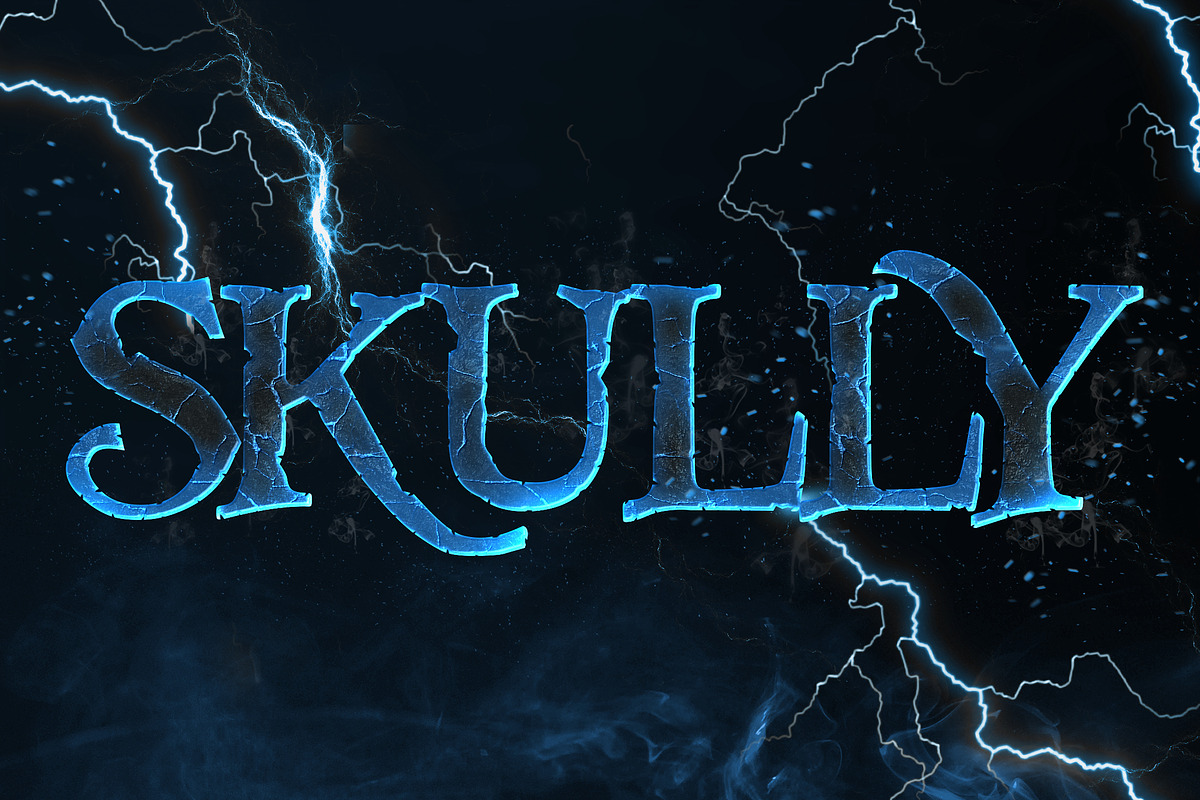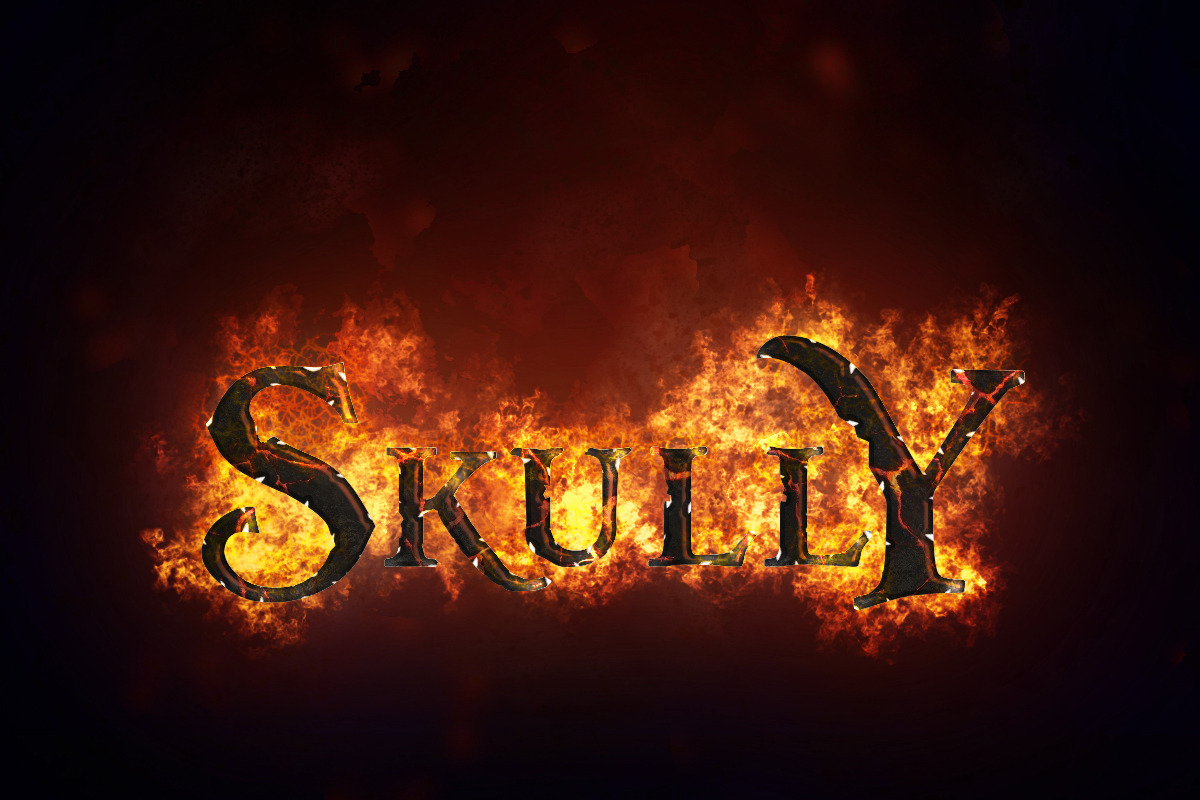
Skully - Design Font
This font is rough and edgy. It has rock like features and is perfect for game titles, video titles, and graphic design.. Skully includes a full set of elegant uppercase and lowercase letters, multi-lingual symbols, numerals, and punctuation.